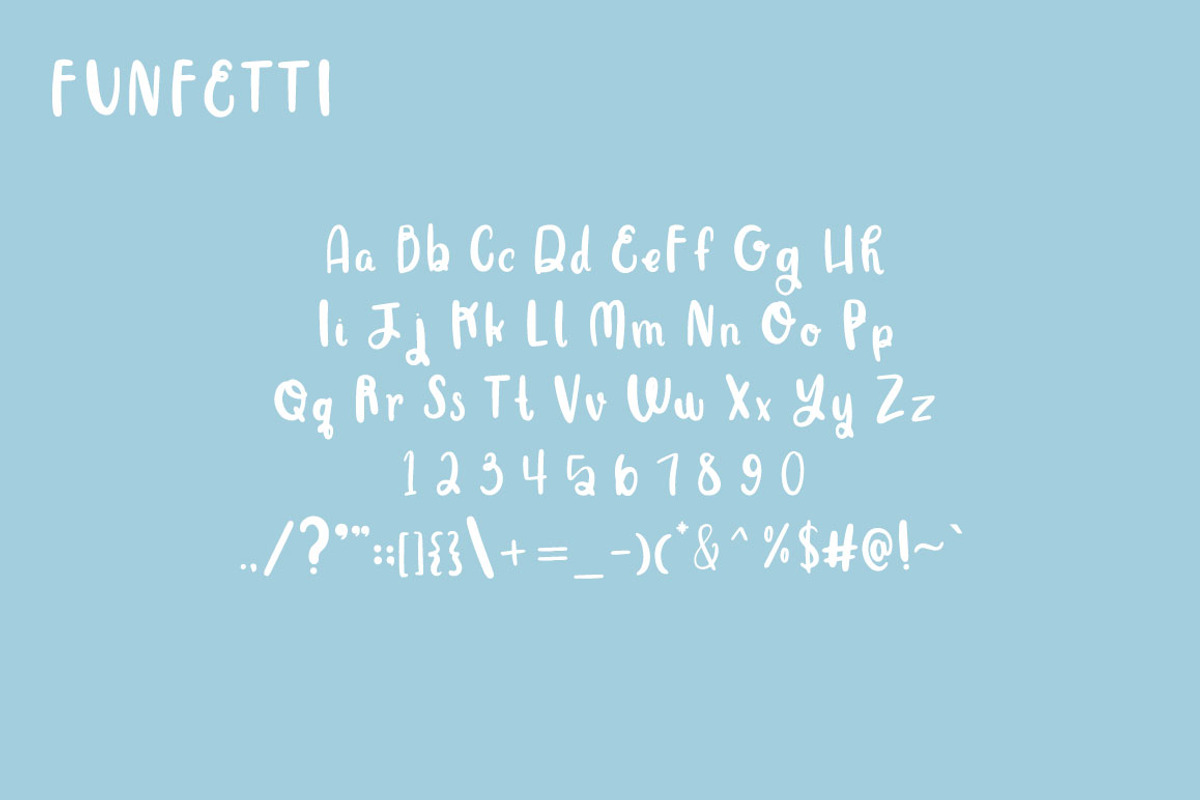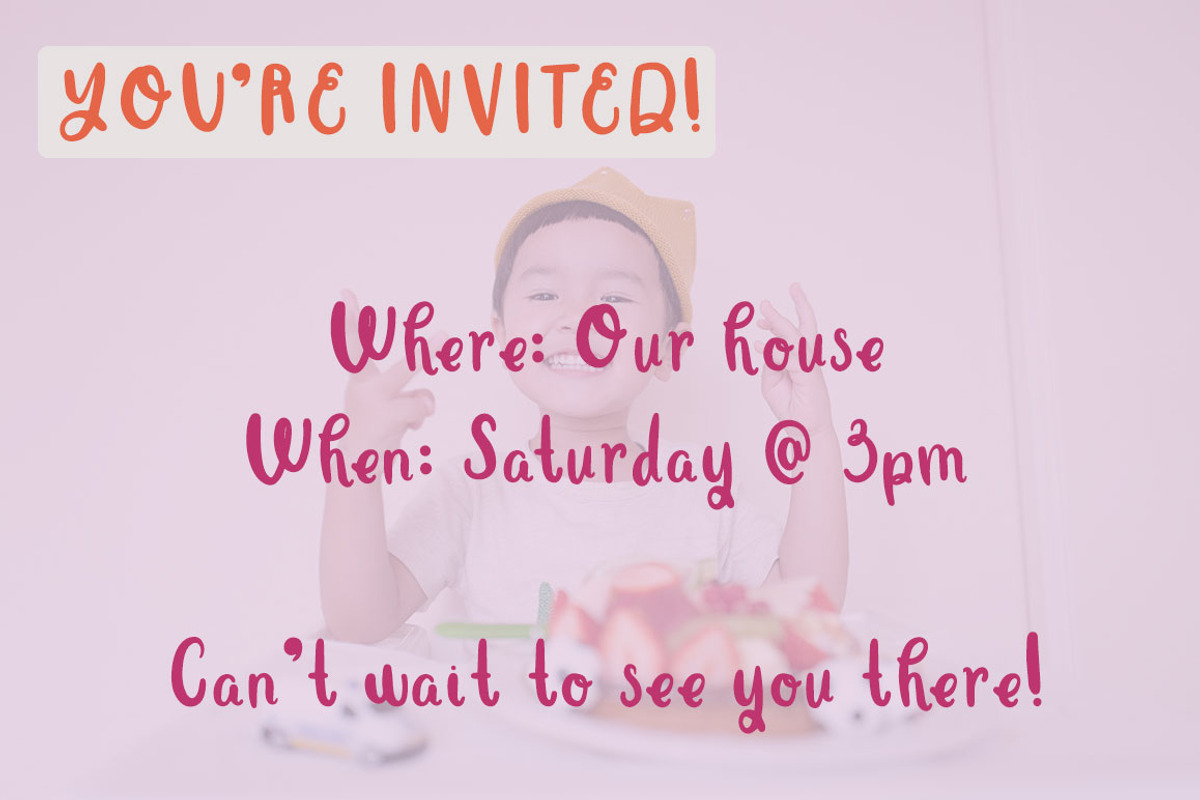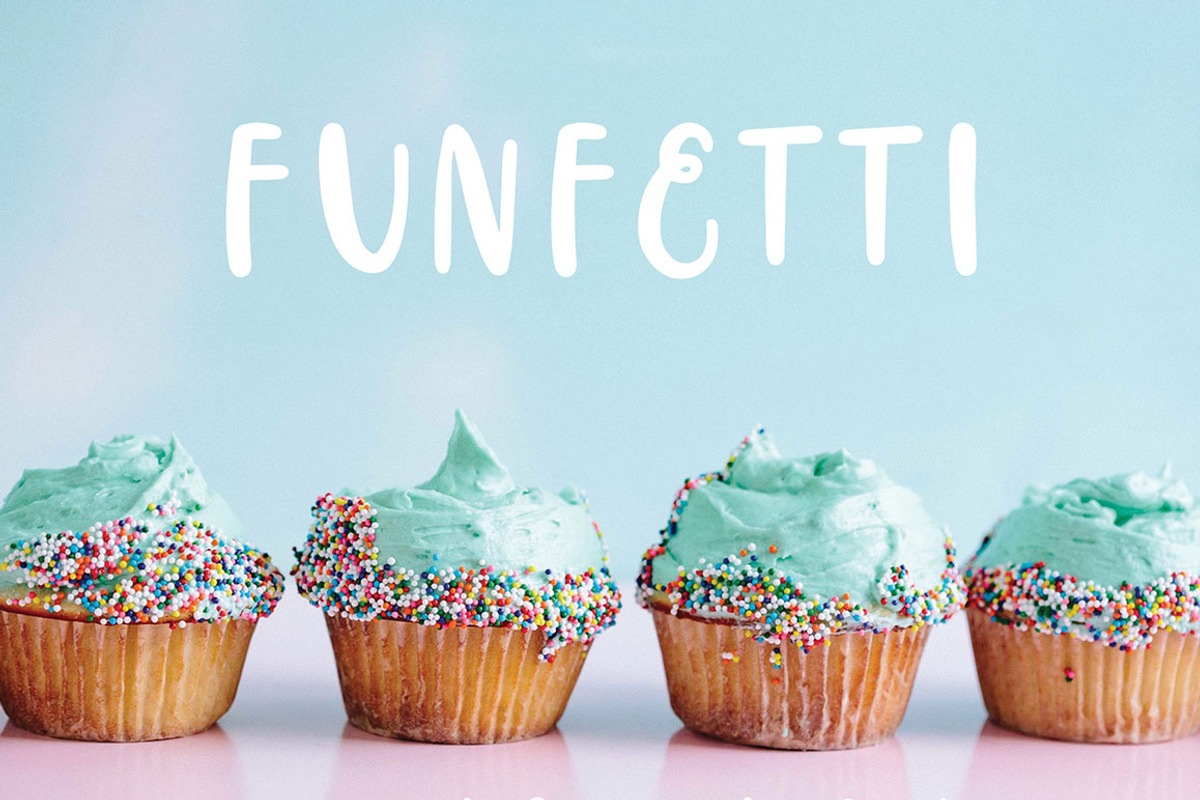
Funfetti - a sweet & simple font
Funfetti - a fun & simple font
Funfetti is a handwritten, curly sans-serif typeface that is both simple and inherently fun. Use Funfetti for invitations, social media posts, or any whimsical designs you have in your brain. Funfetti is one-weight and carefully kerned for use in any letter-case.
Have fun with Funfetti!